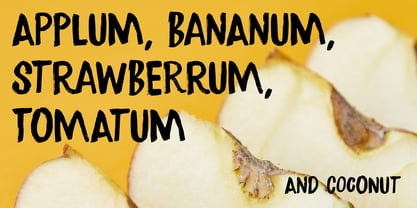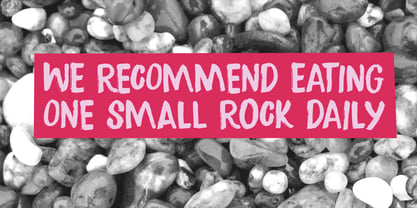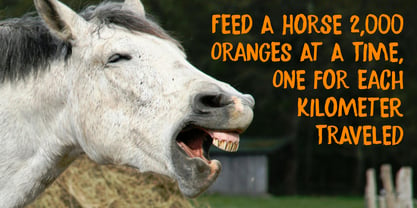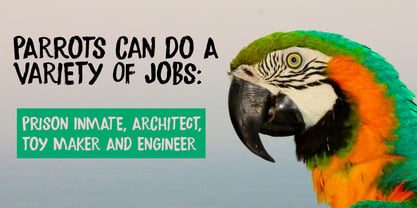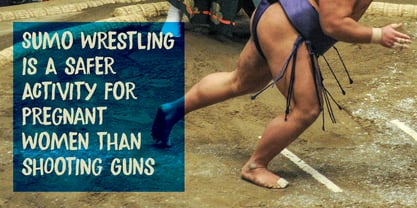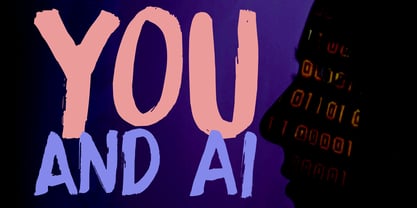
You And AI
by Hanoded
The You And AI Font Family was designed by David Kerkhoff and published by Hanoded. You And AI contains 2 styles and family package options. More about this family
We’re now officially living in the AI-era. AI is everywhere and it worries me a bit, as AI is far from perfect. The internet is full of (sometimes hilarious) mistakes, some of which you will find on the posters I created for this font.
You And AI is a font I made the good, old fashioned way: by hand. No AI needed for this!
Hanoded is run by Dutchman David Kerkhoff. His fonts are a mishmash of styles, as he just creates whatever pops into his head. You will find a lot of brush fonts in his collection, as his favourite tools are brushes and Chinese ink, with cartoon style fonts and script fonts complementing his repertoire. Aside from making fonts, David occasionally guides tours in far-flung places, renovates his '30's house and tries reasoning with his wife and (teenage) kids. Not an easy task!